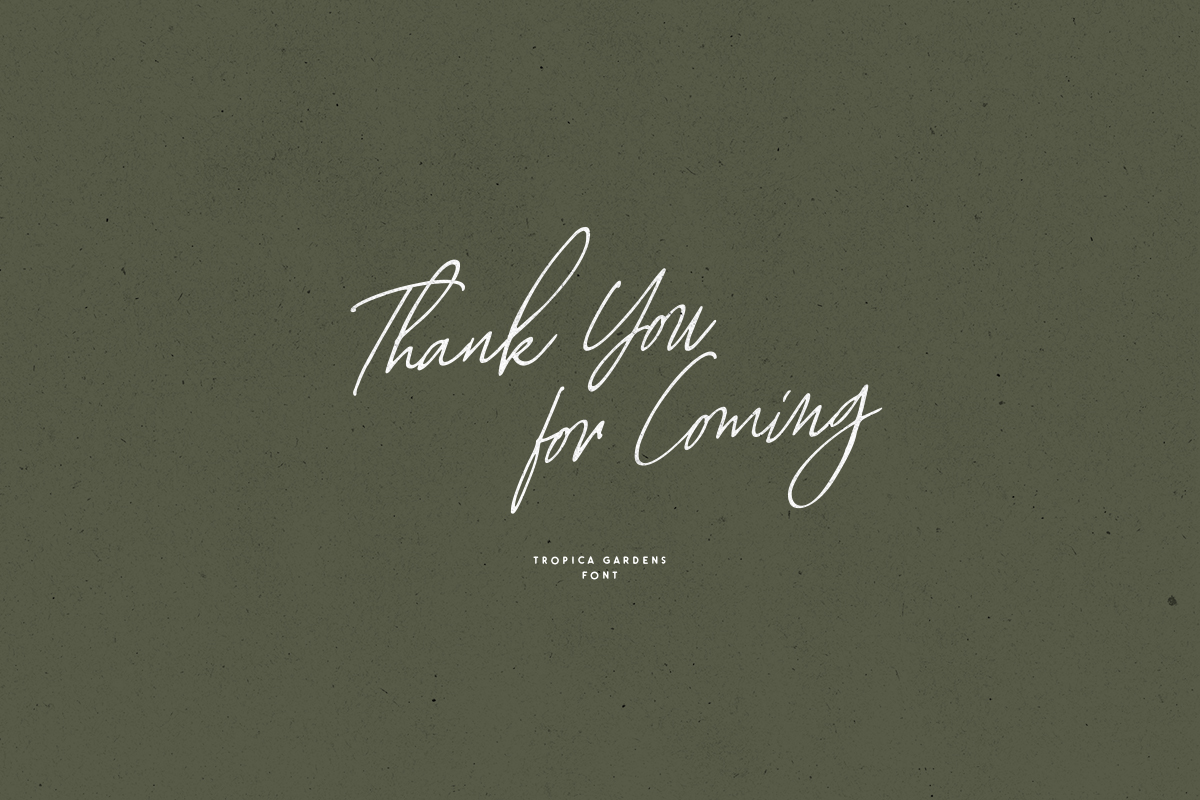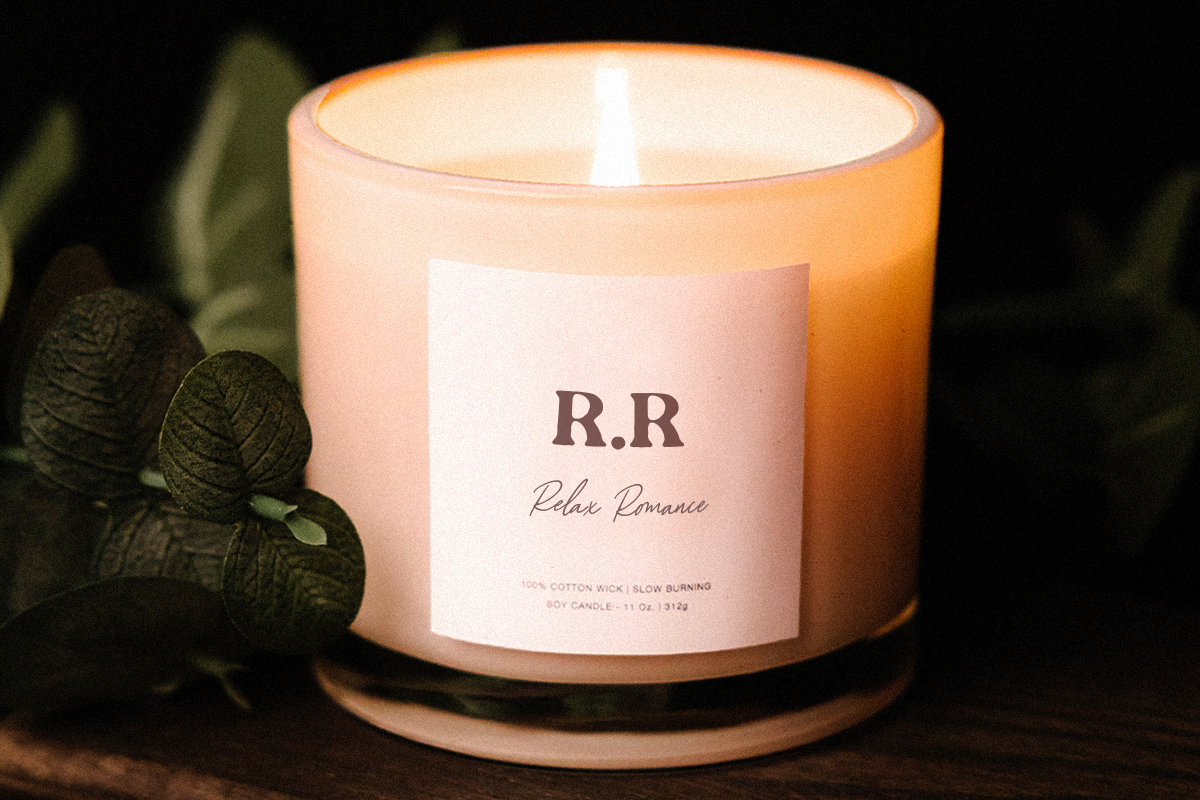
Tropica Gardens – Font Trio
Introducing, Tropica Gardens – Essential Font Trio
Tropica Gardens is perfect and essential combination between three fonts including bold serif, rounded sans, and authentic signature. This font trio also support multilingual, number and symbol. You can use this font for any purpose. The best part is, you don’t need to search for the pairing. It’s included in this package.